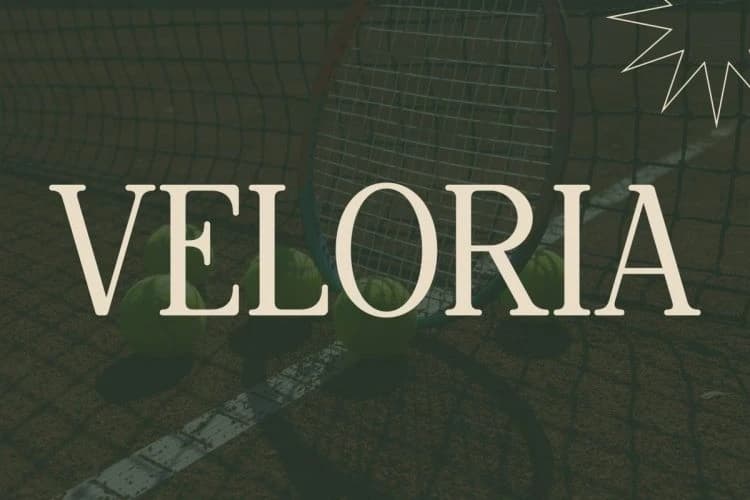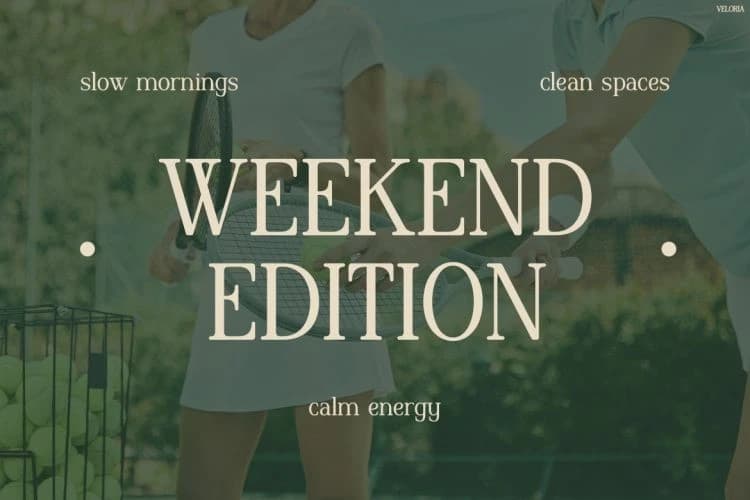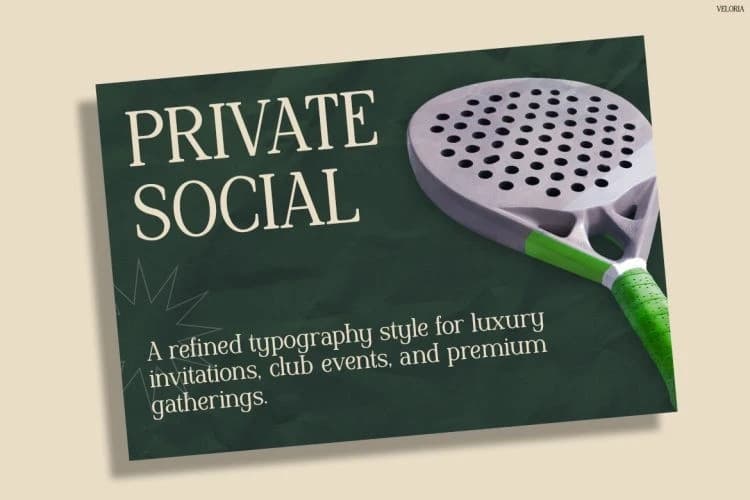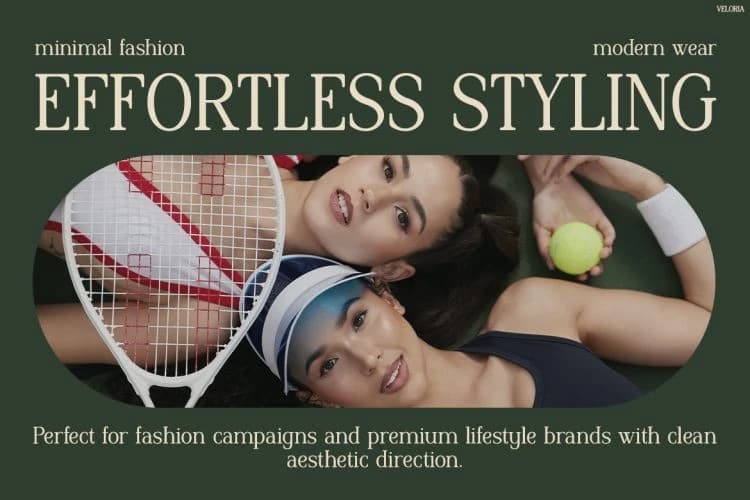
Veloria Font
Veloria Font is a refined and elegant typeface designed to elevate modern lifestyle visuals with a premium touch. At first glance, its graceful serif details and balanced proportions create a timeless and sophisticated look.